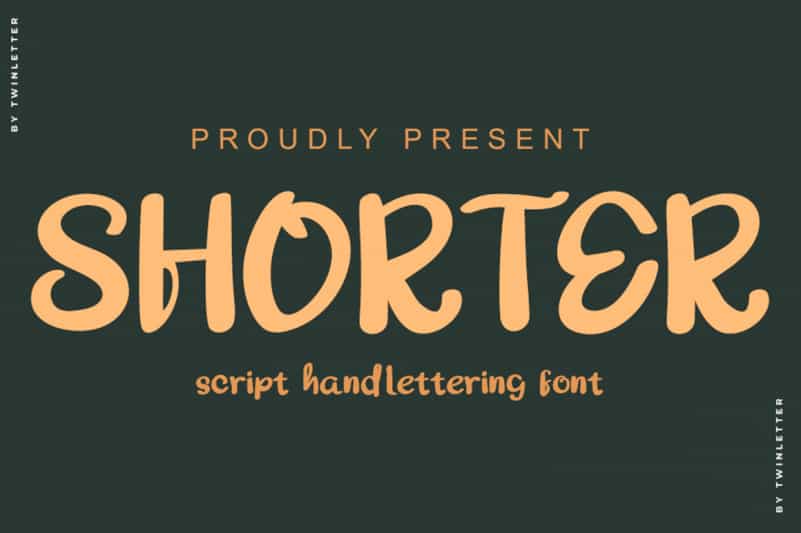
Shorter Bold Script Font
Shorter Bold Script Font is a bold handwritten font, carefully handcrafted to become a true favorite. Its casual charm makes it appear wonderfully down-to-earth, readable and, ultimately, incredibly versatile. Shorter will look outstanding in any context, whether it’s being used on busy backgrounds or as a standalone headline!